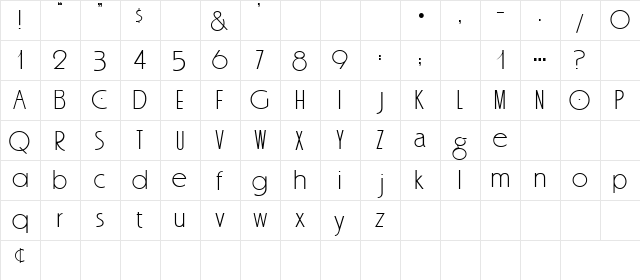
4 Stix DNA Regular
Design Context for 4 Stix DNA Typeface
4 Stix DNA offers clean, dependable letterforms without strong stylistic allegiance, making it a practical choice for designers who need flexibility.